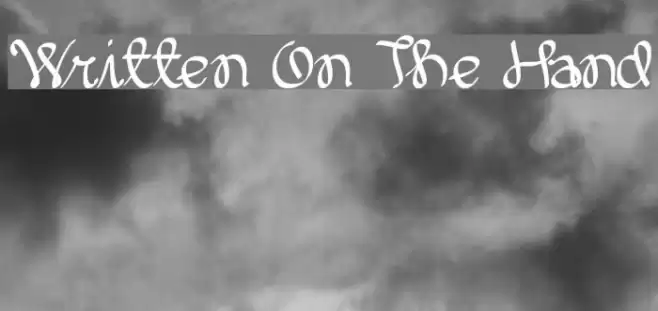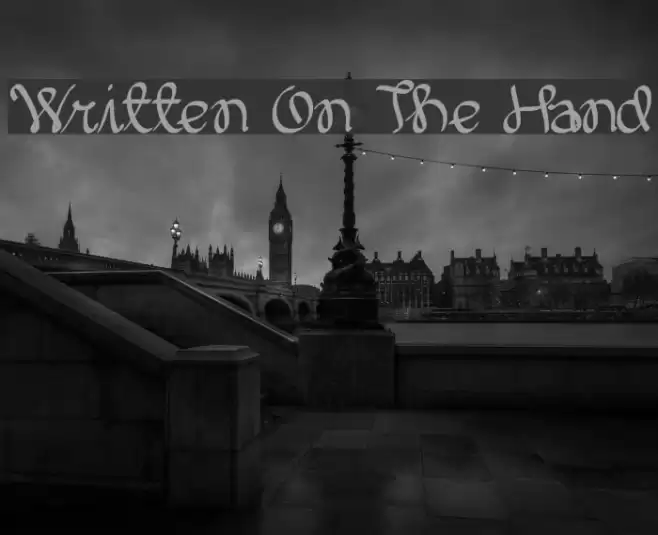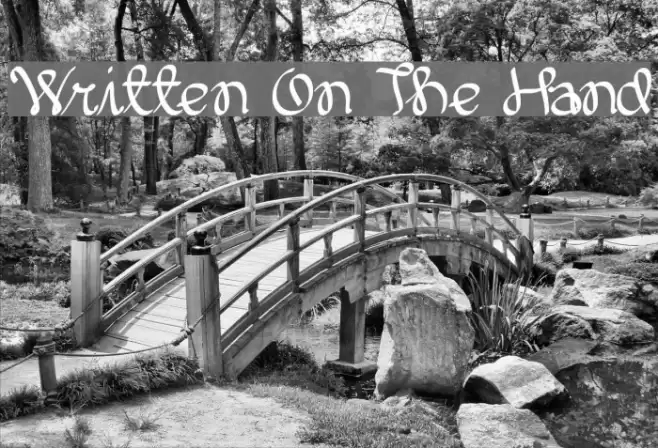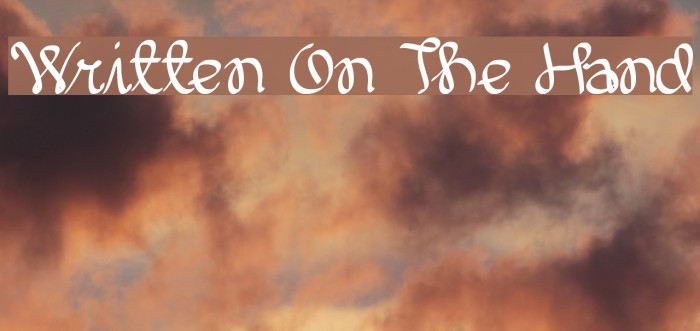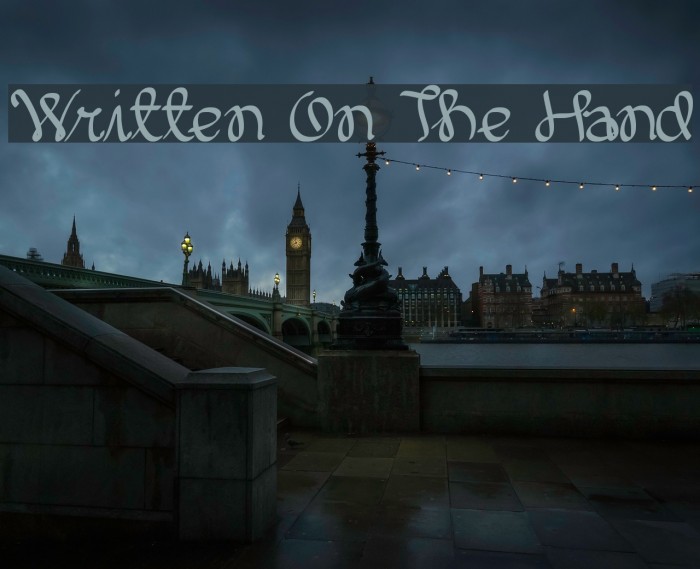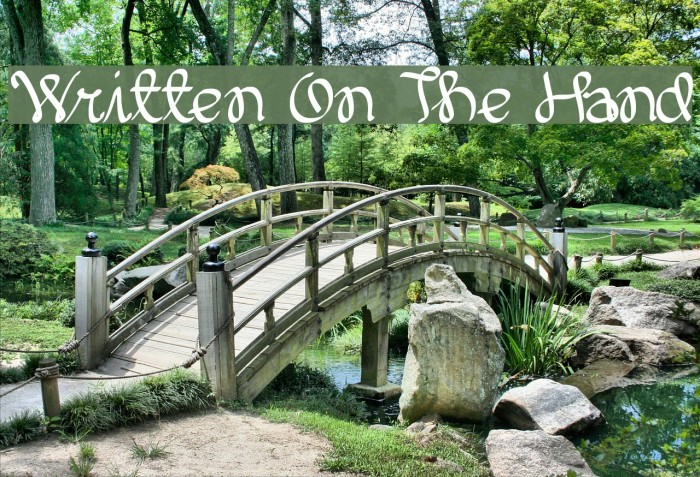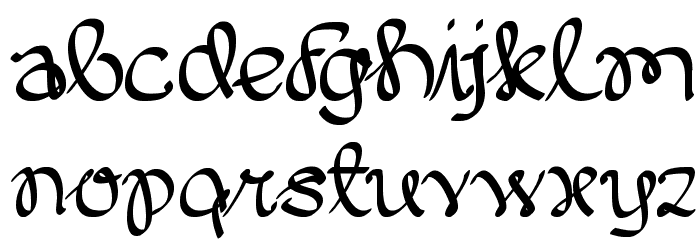
Written On The Hand Font
Written On The Hand Description
This font features a whimsical and artistic style, characterized by its flowing, interconnected strokes that mimic the fluidity of handwriting. The uppercase letters are bold and expressive, with unique curls and loops that add a playful touch. The lowercase letters maintain this artistic flair, offering a consistent yet dynamic appearance. The numbers and special characters are equally stylized, ensuring a cohesive look across all elements. This font is perfect for projects that require a personal, creative touch, such as invitations, greeting cards, or artistic branding.
A whimsical, artistic font with flowing, interconnected strokes from Uncategorized fonts.
- Proposed Projects: Ideal for invitations, greeting cards, artistic branding, and creative projects.
- Use Case: Logos, Headlines, Artistic projects